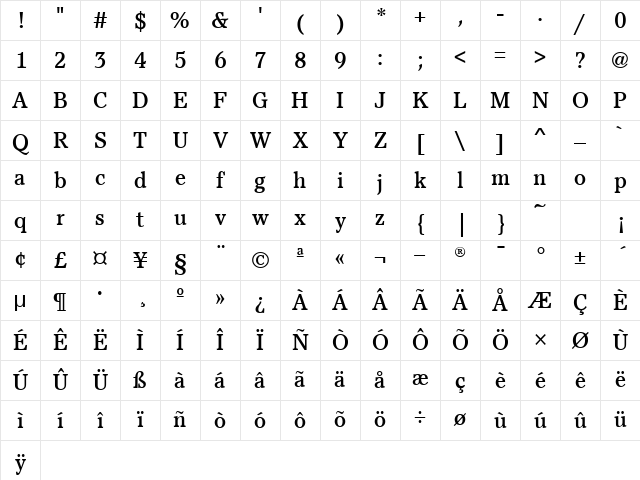
PacellaMdITCTT Regular
Foundry: International Typeface Corporation
Designer: Vincent Pacella
Design Context for PacellaMdITCTT
PacellaMdITCTT is a composed and adaptable typeface that performs quietly and consistently across a wide range of design contexts.